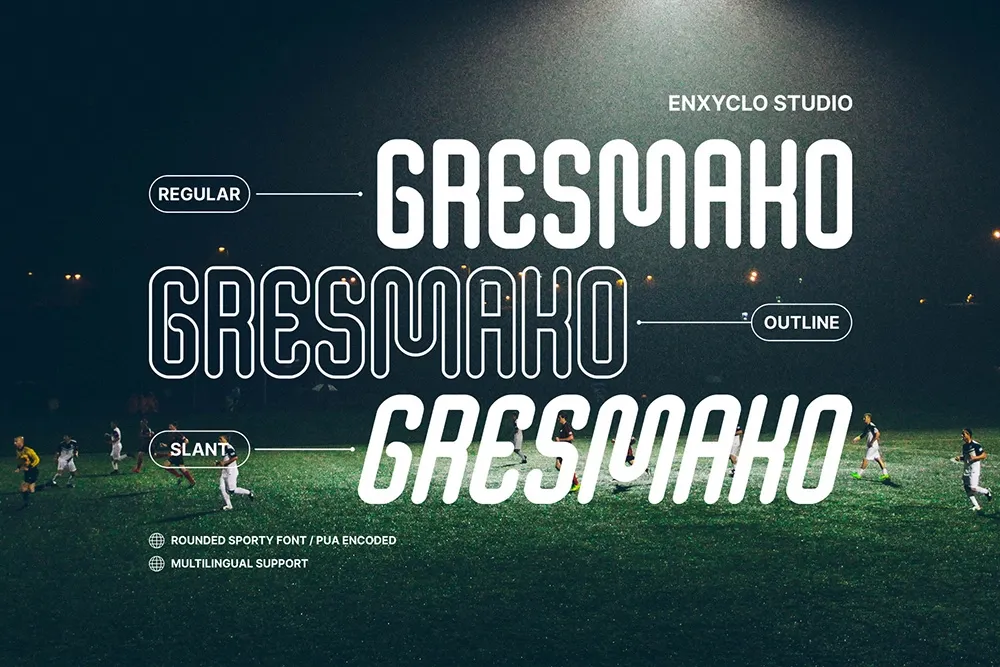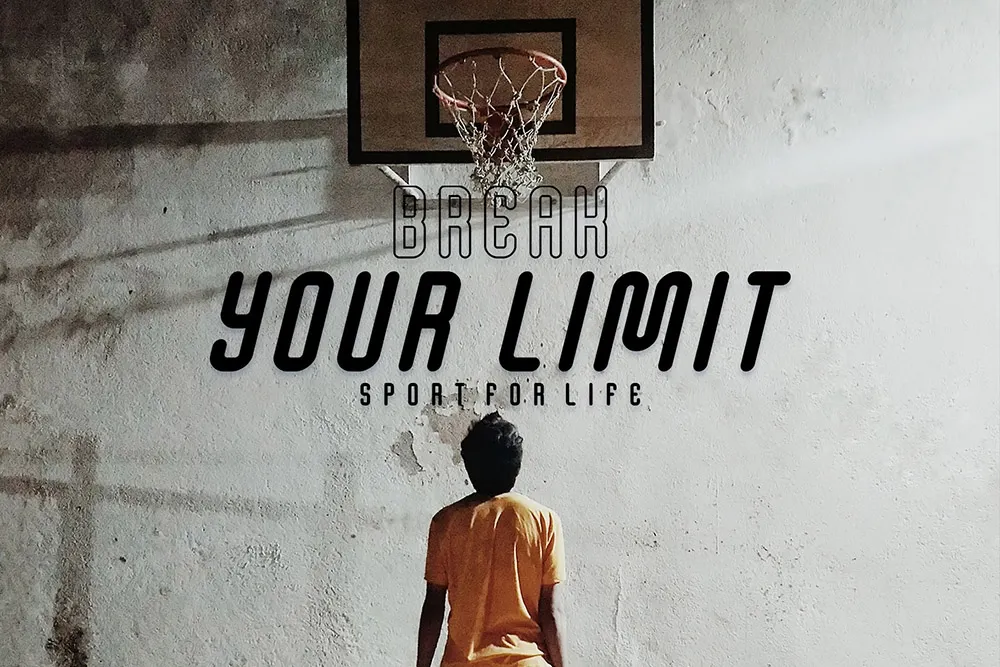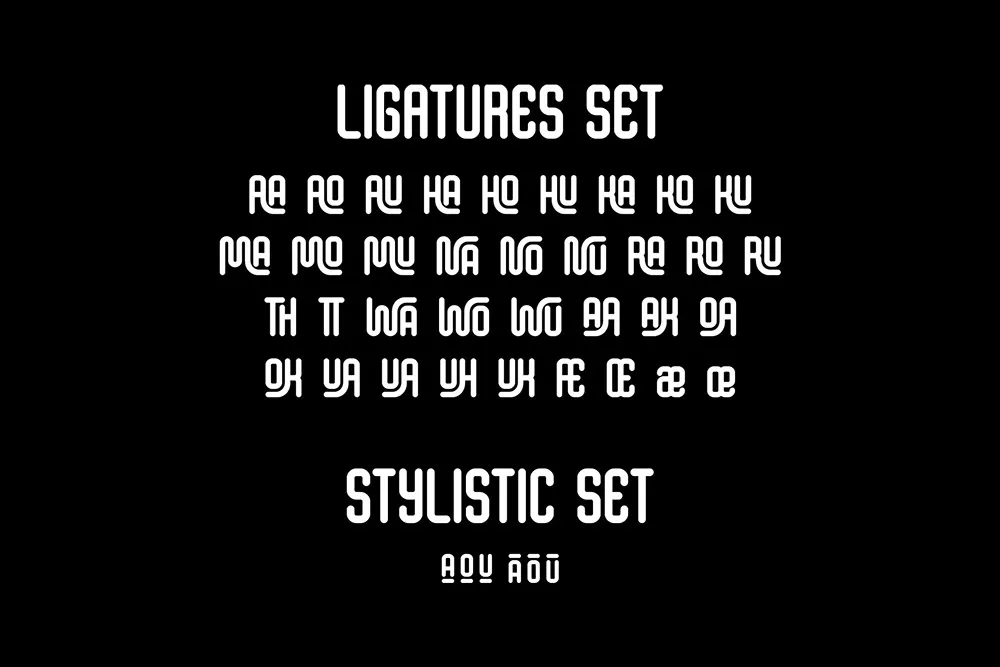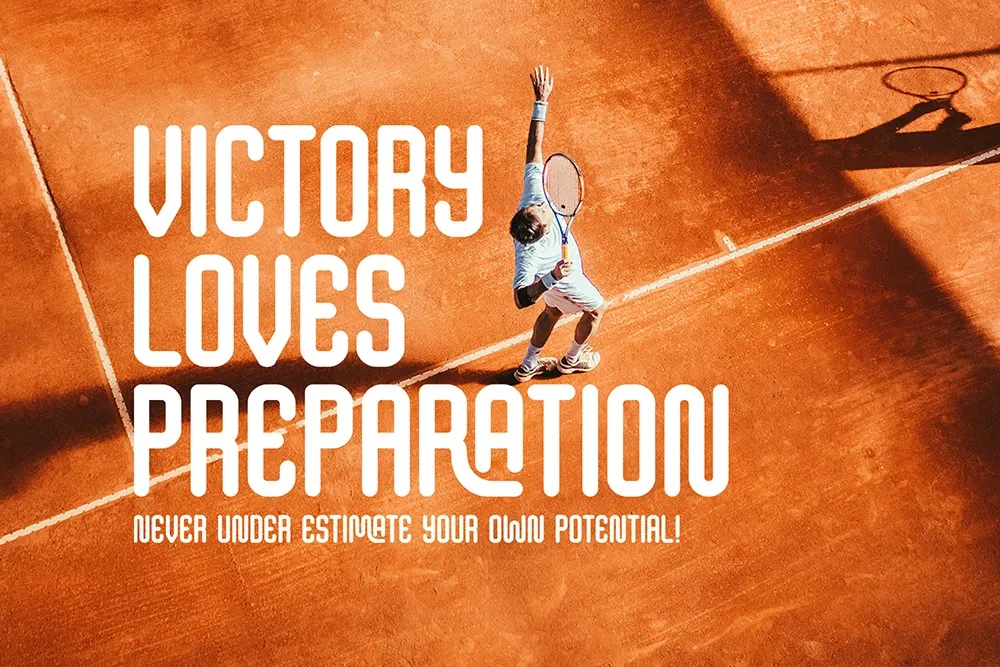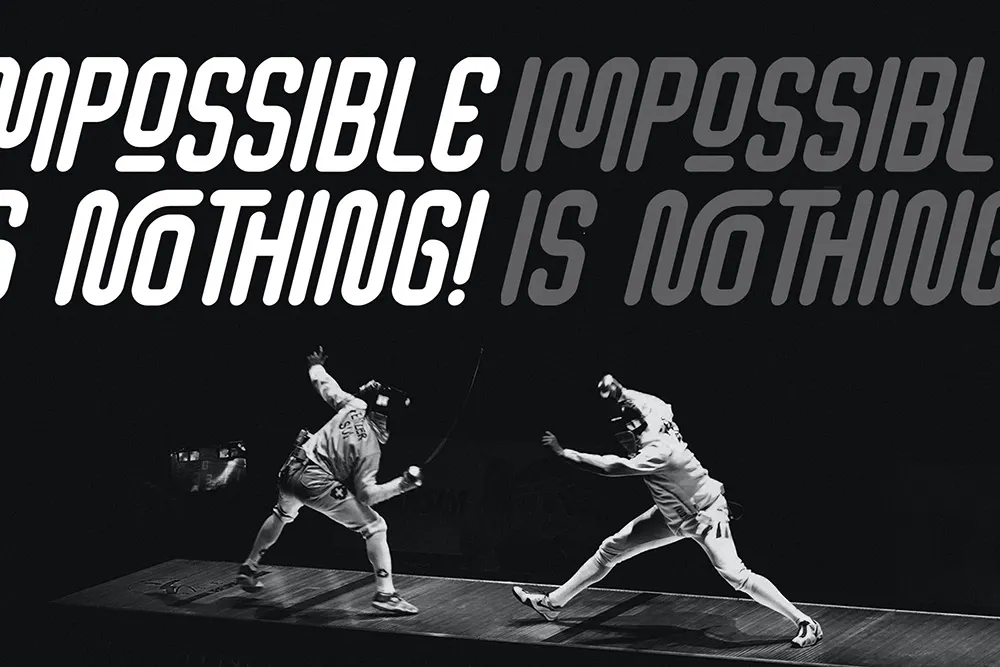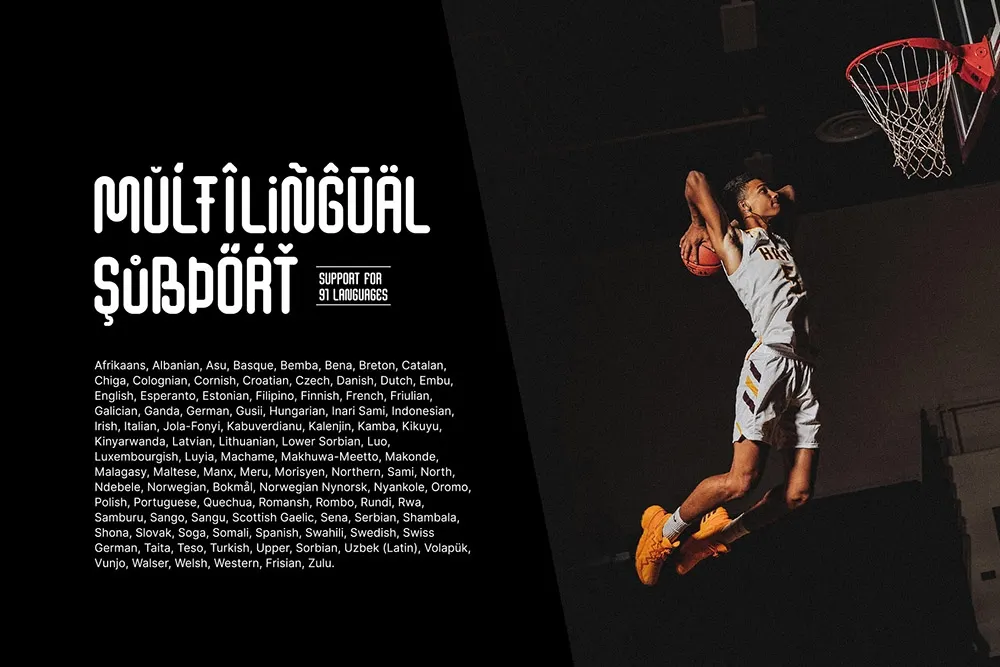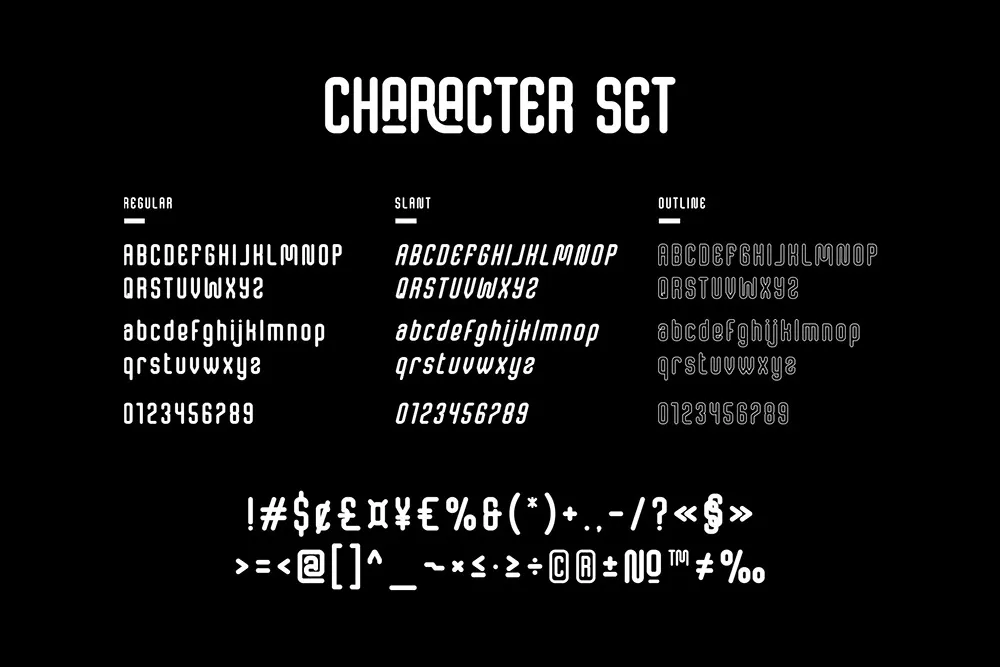
Gresmako - Rounded Sport Display Font
Gresmako – Rounded Sport Display Font is a bold and energetic typeface designed with smooth rounded shapes and a strong sporty character. Its clean curves and confident structure create a modern athletic look that feels both powerful and friendly. The rounded forms give the font a distinctive personality while maintaining excellent readability, making it perfect for impactful typography across both print and digital designs.
Built to perform exceptionally well at large sizes while remaining clear in smaller compositions, Gresmako is ideal for headlines, posters, magazines, branding, logos, websites, and sports-related visuals. With multiple style variations, designers can easily create dynamic layouts and expressive typographic compositions that stand out.
- 3 Styles: Regular, Outline & Slant
- Uppercase & Lowercase Characters
- Punctuation & Symbols
- Rounded Sport Display Style